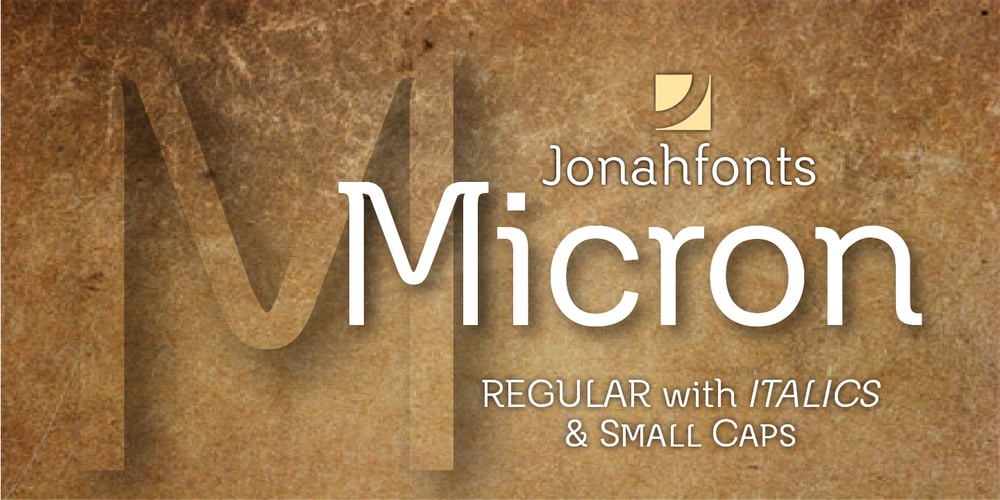
Micron
Micron font
Micron Font Family was designed by John Nahmias and published by Jonahfonts. Micron contains 2 styles and family package options. A graphic font with emphasis on legibility, dynamic and modern. Very suitable for a variety of applications.